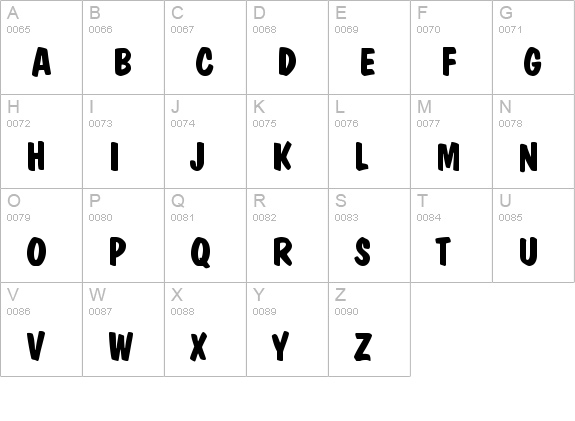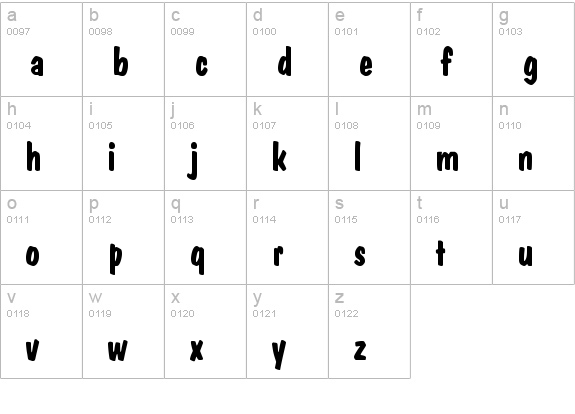
Dom Casual Bold Font Details
Dom Casual Bold is a strong, high-contrast variant in the Dom typeface family \xE2\x80\x94 well suited to headlines, attention-grabbing titles, and strong calls-to-action.
Dom Casual Bold is a distinctive and eye-catching font that exudes a sense of creativity and playfulness. With its bold and dynamic appearance, this font is perfect for making a statement and grabbing attention. The thick strokes and unique letter shapes give it a modern and edgy look that is sure to stand out in any design project. The best part is that Dom Casual Bold is available for free download at FontsMarket.com. This means you can easily access this stylish font and use it in your projects without any cost. Whether you're designing a poster, logo, or any other creative work, Dom Casual Bold will add a touch of personality and flair. Download it now and let your creativity shine with this amazing font.